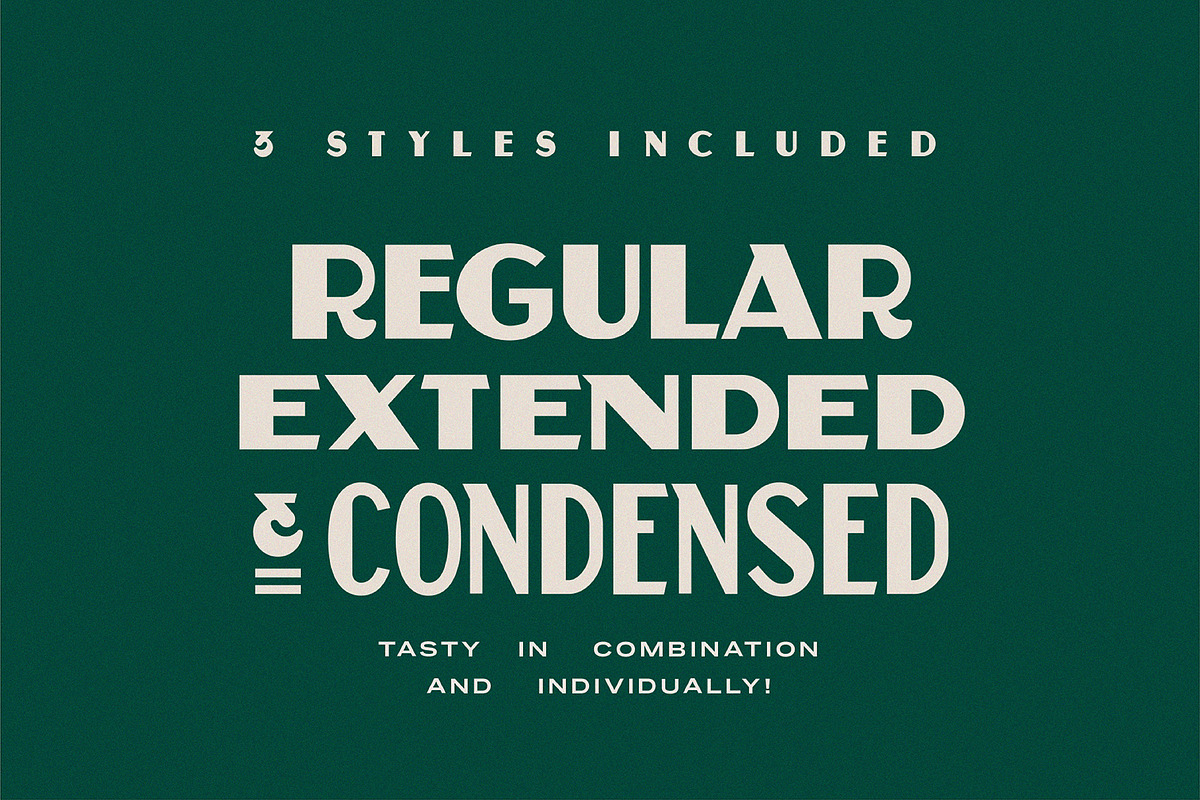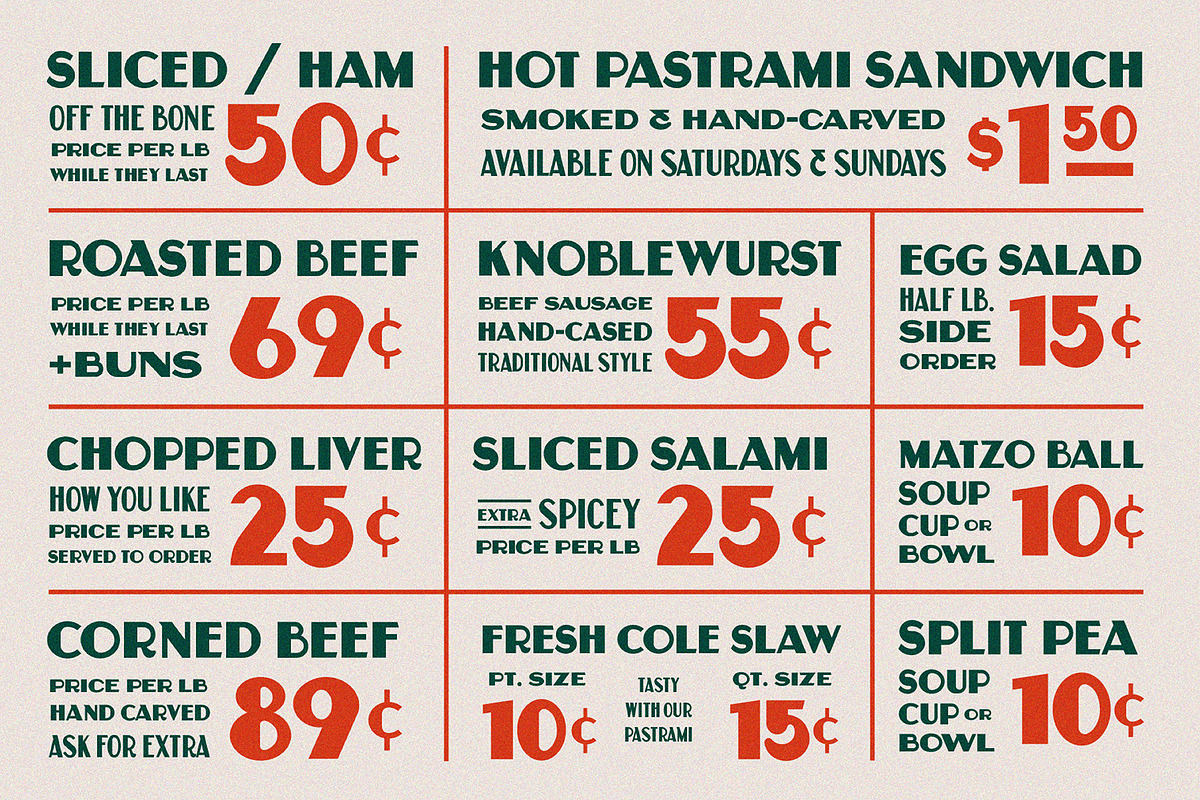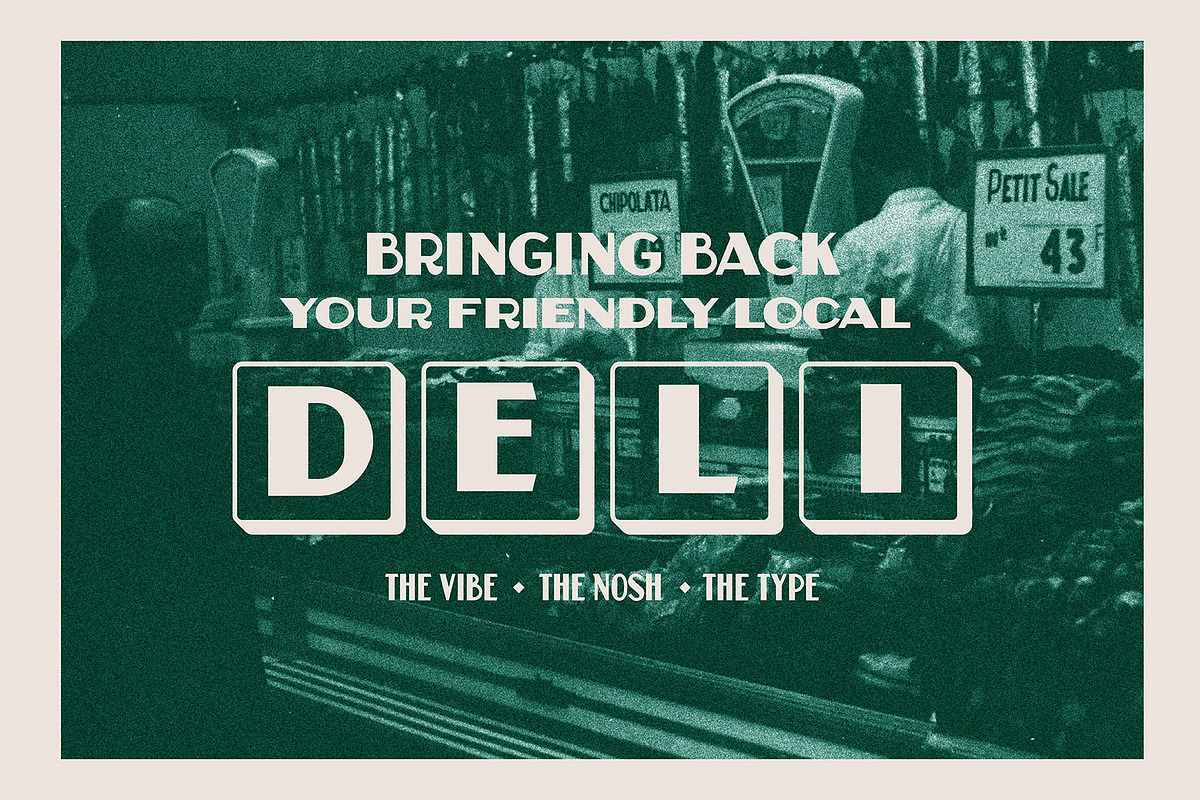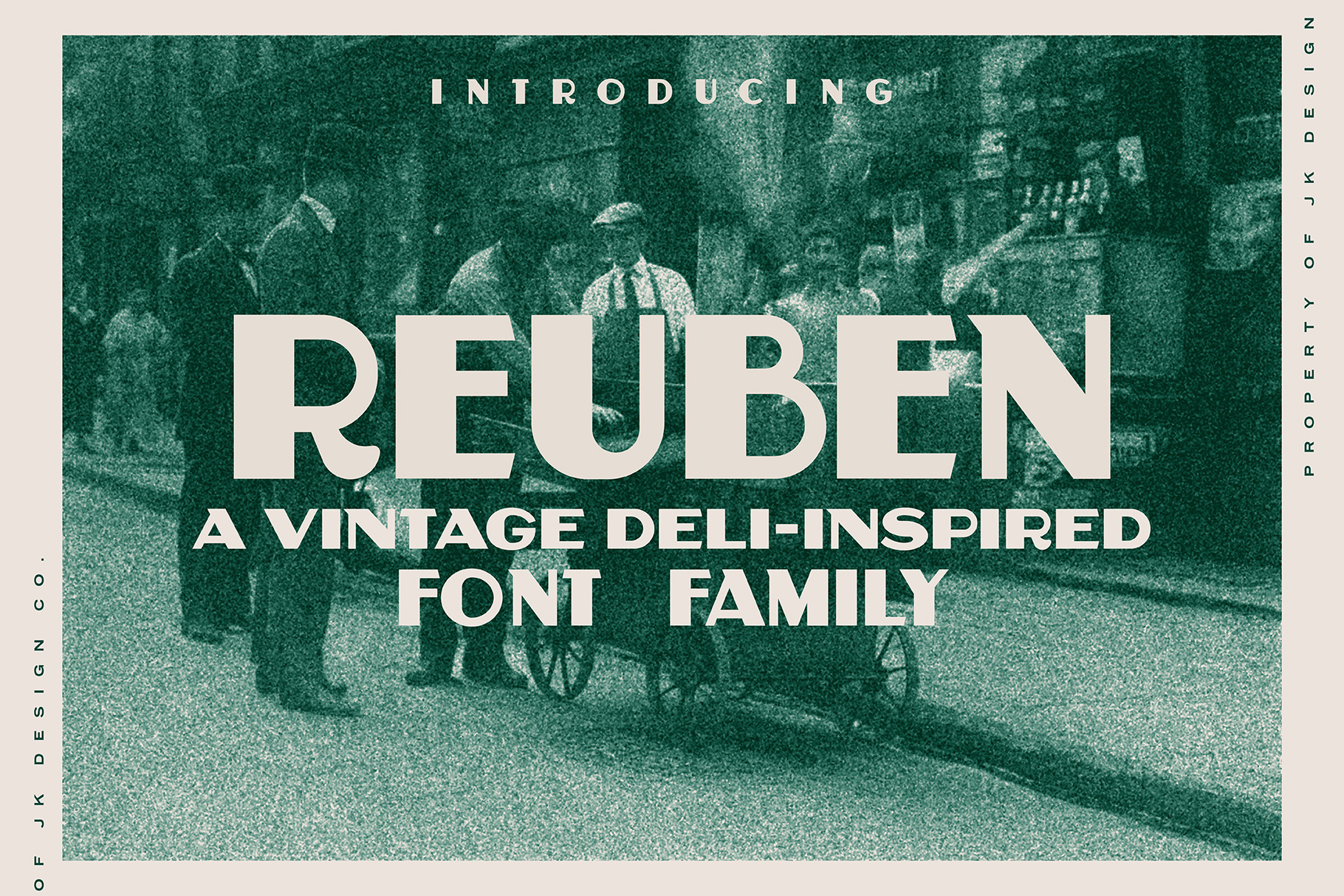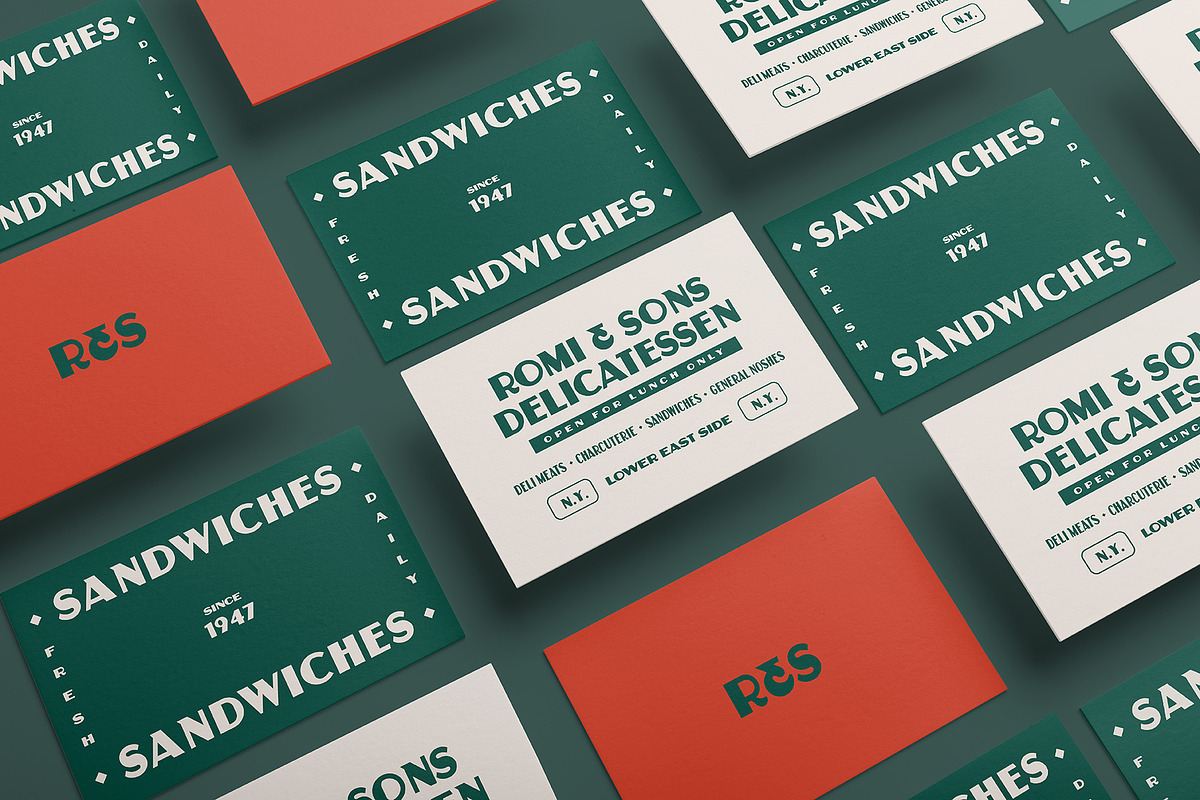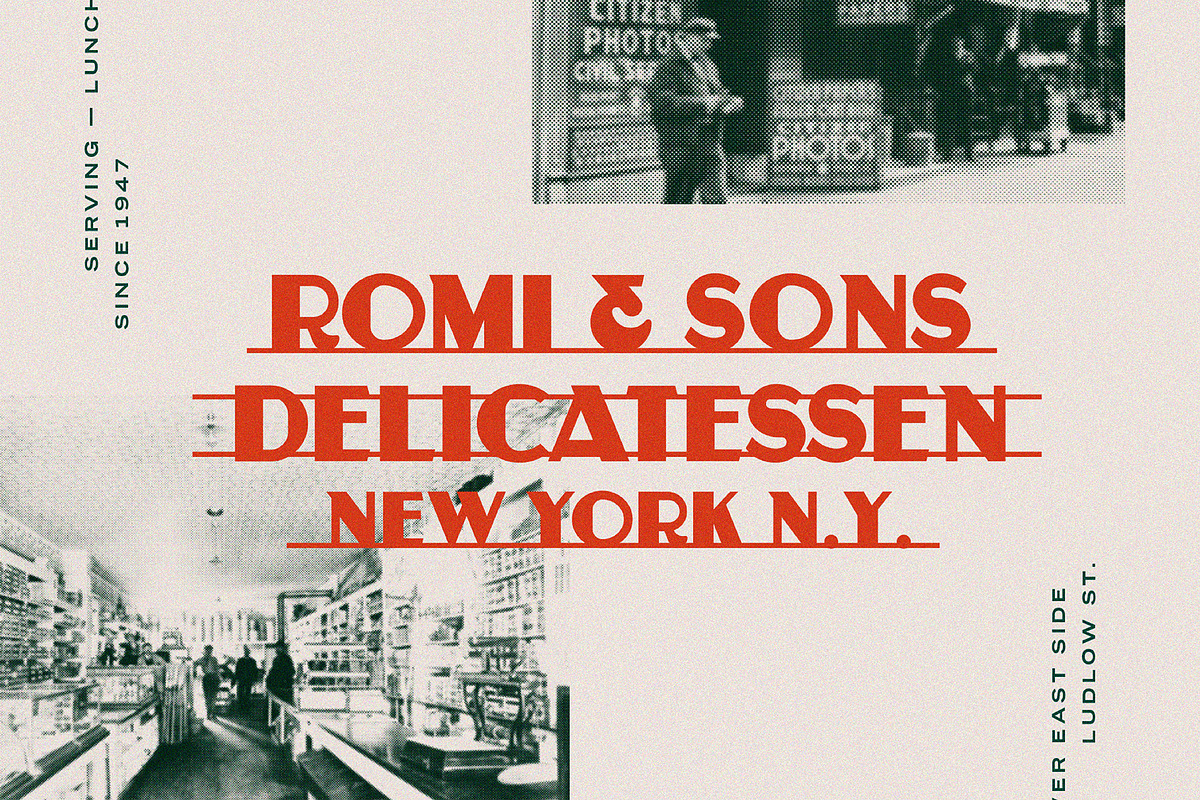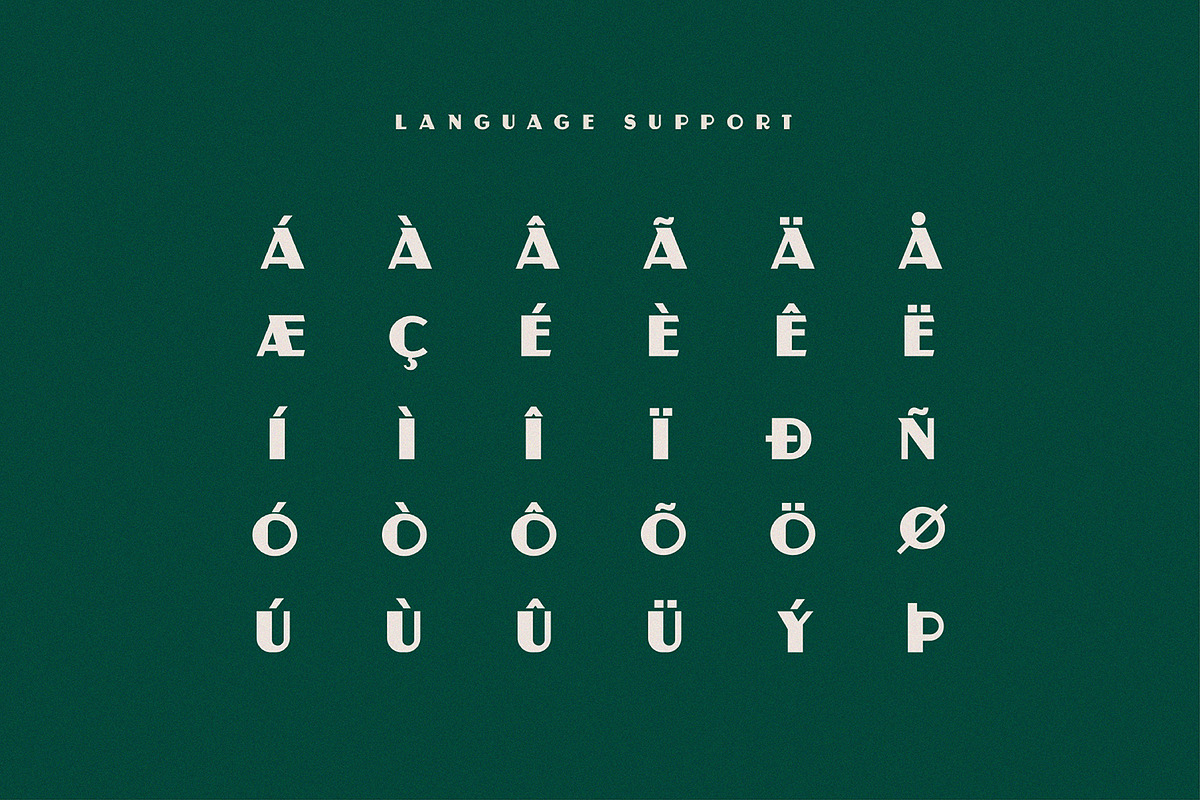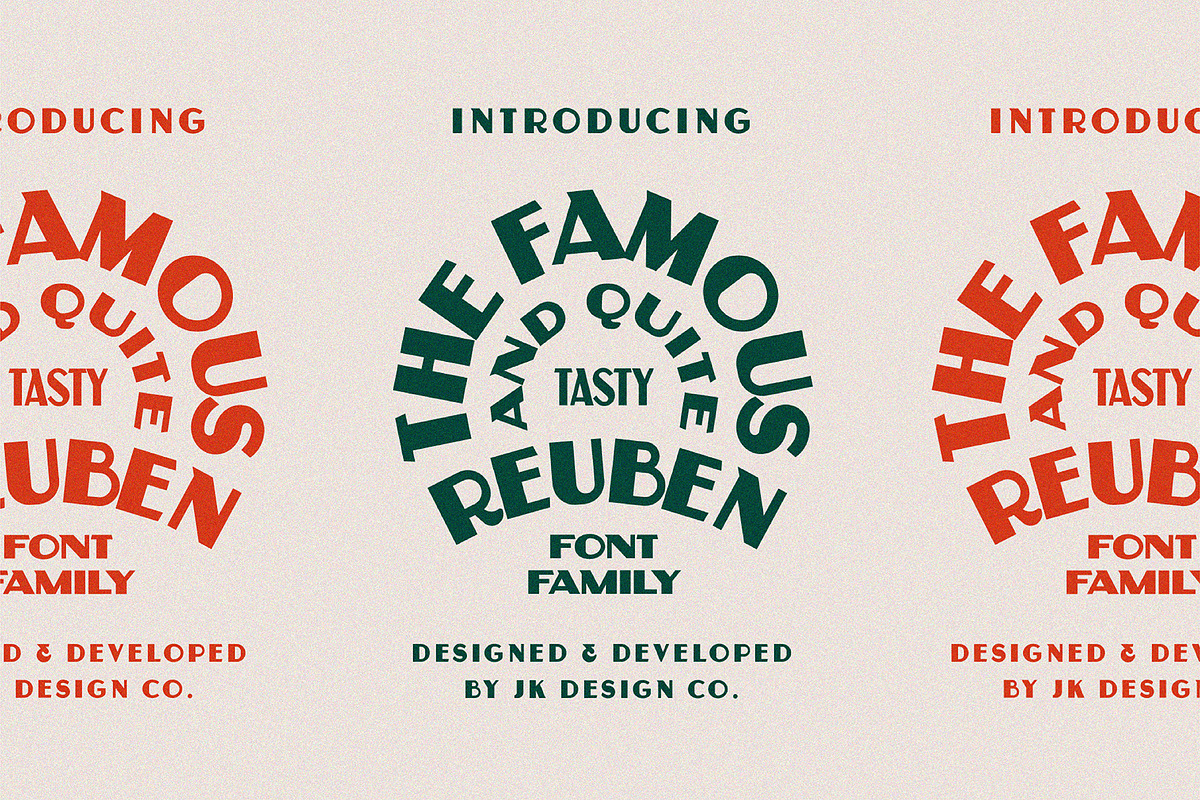
Reuben - A Vintage Display Font
ABOUT
Reuben is a display typeface inspired by vintage fascia signage of New York City’s lower east side. Specifically, these letterforms were designed to mimic the immigrant delicatessens that popped up around the turn of the century.
Reuben is a sans serif typeface with a high thick-to-thin contrast. A style commonly used during the days of hand-painted signs. Reuben introduces several unique letterforms that help soften the generally hard edges of the rest of the alphabet. Like the “R” for example has a somewhat bubbly leg that adds a bit of personality. Or the “O” which has an offset negative space.
Create bold typographic statements with 3 different font styles! Perfect for packaging and branding projects looking to create bold impact with a vintage flair.
3 different type styles
- Reuben Regular
- Reuben Extended
- Reuben Condensed
Latin character accents and umlauts included as glyphs!